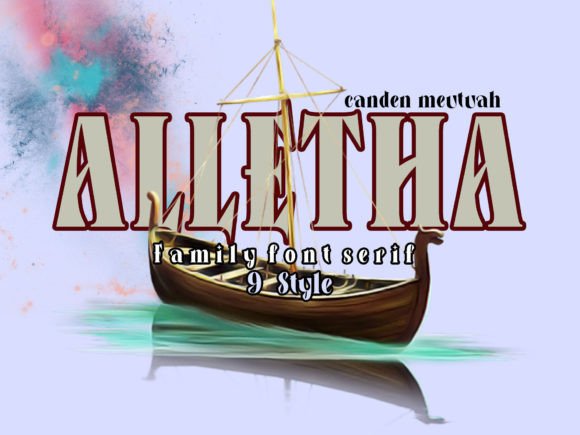
The Elegant Alletha Font: A Designer’s Delight
I’ll never forget the time I was working on a wedding invitation project, and my client asked for a font that exuded elegance and sophistication. I scoured the internet, tried out countless fonts, but none seemed to fit the bill. That was until I stumbled upon the Alletha Font. ✨ This beautiful serif typeface has been a game-changer for my design projects, and I’m excited to share my experience with you.
• ✨ Elegant and classy design that adds a touch of sophistication to any project
• ✅ High legibility, making it perfect for body text and headings
• ✅ Versatile and suitable for a wide range of design projects, from branding and logos to social media posts and product packaging
• ✅ Beautifully crafted to ensure consistency and harmony in your designs
While the Alletha Font is an excellent choice, there are a few things to keep in mind: 🤔
• ⚠️ Some users may find the font a bit too ornate for certain projects, such as casual social media posts or children’s book designs
• ⚠️ The font may not be suitable for very small font sizes, as some details may get lost
The Alletha Font was designed with inspiration from classic serif fonts, combined with modern elements and a touch of elegance. The font’s creator aimed to craft a typeface that’s both sophisticated and versatile, suitable for a wide range of design projects. 💡
Q: What type of projects is Alletha Font suitable for?
A: Alletha Font is suitable for a wide range of design projects, including branding, logos, wedding designs, social media posts, advertisements, product packaging, and more.
Q: Is Alletha Font easy to read?
A: Yes, Alletha Font is designed with high legibility in mind, making it easy to read in various font sizes and styles.